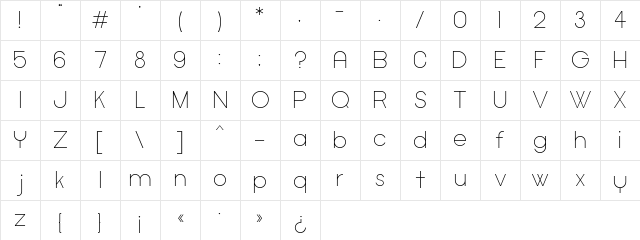
Cypher Light
| Foundry | Ill Type |
| Designer | Nabeel Khalid |
Design Context for Cypher Typeface
Cypher offers clean, dependable letterforms without strong stylistic allegiance, making it a practical choice for designers who need flexibility. The delicate stroke weight brings airiness and refinement to layouts.